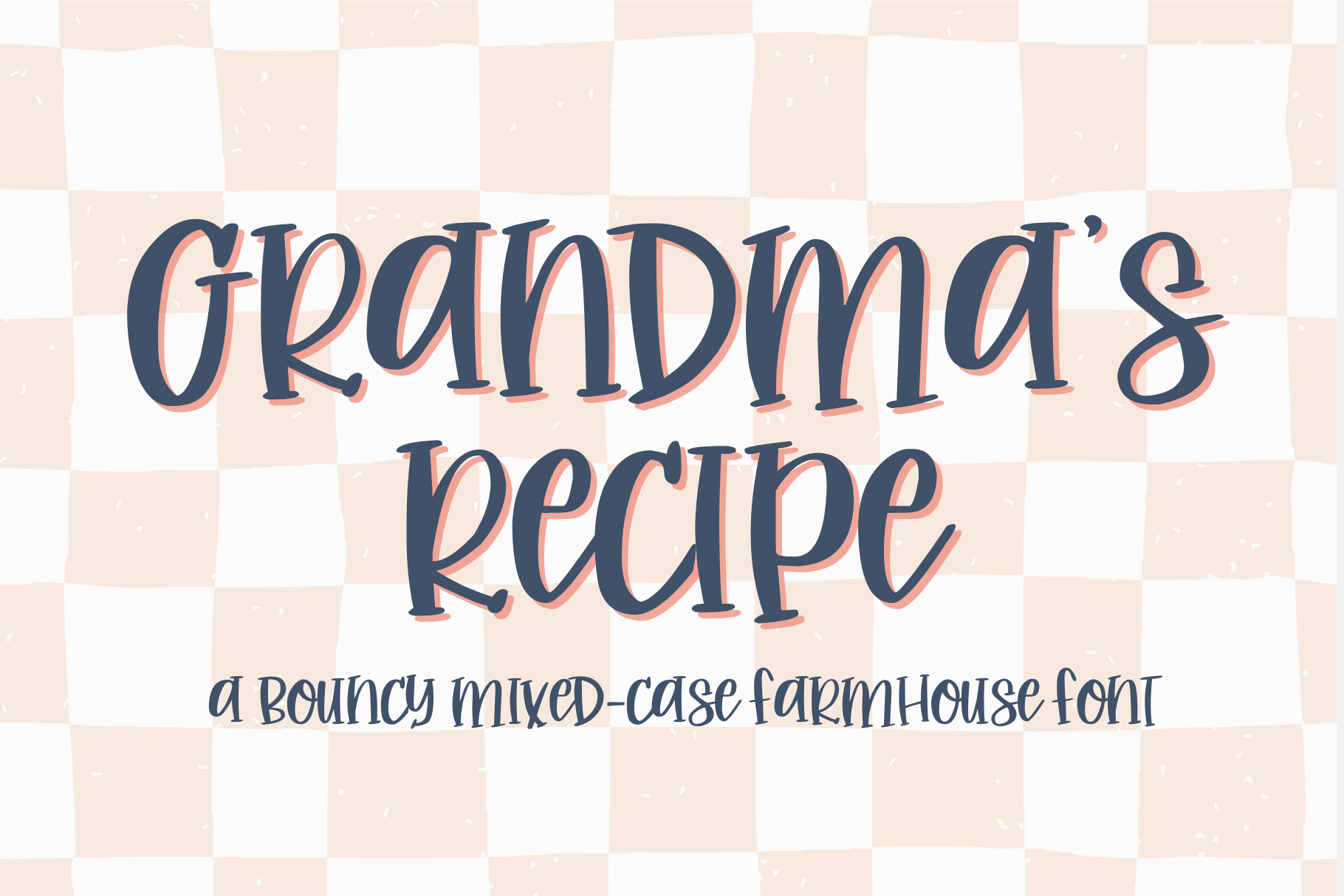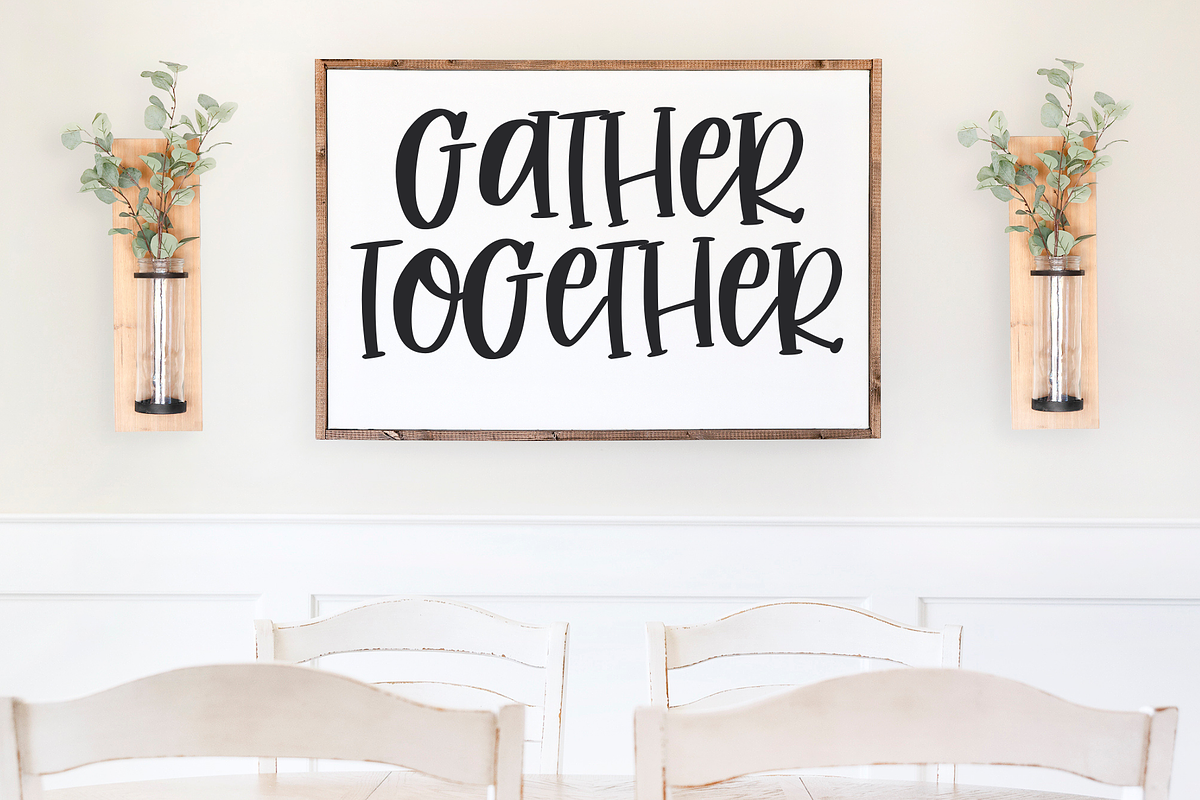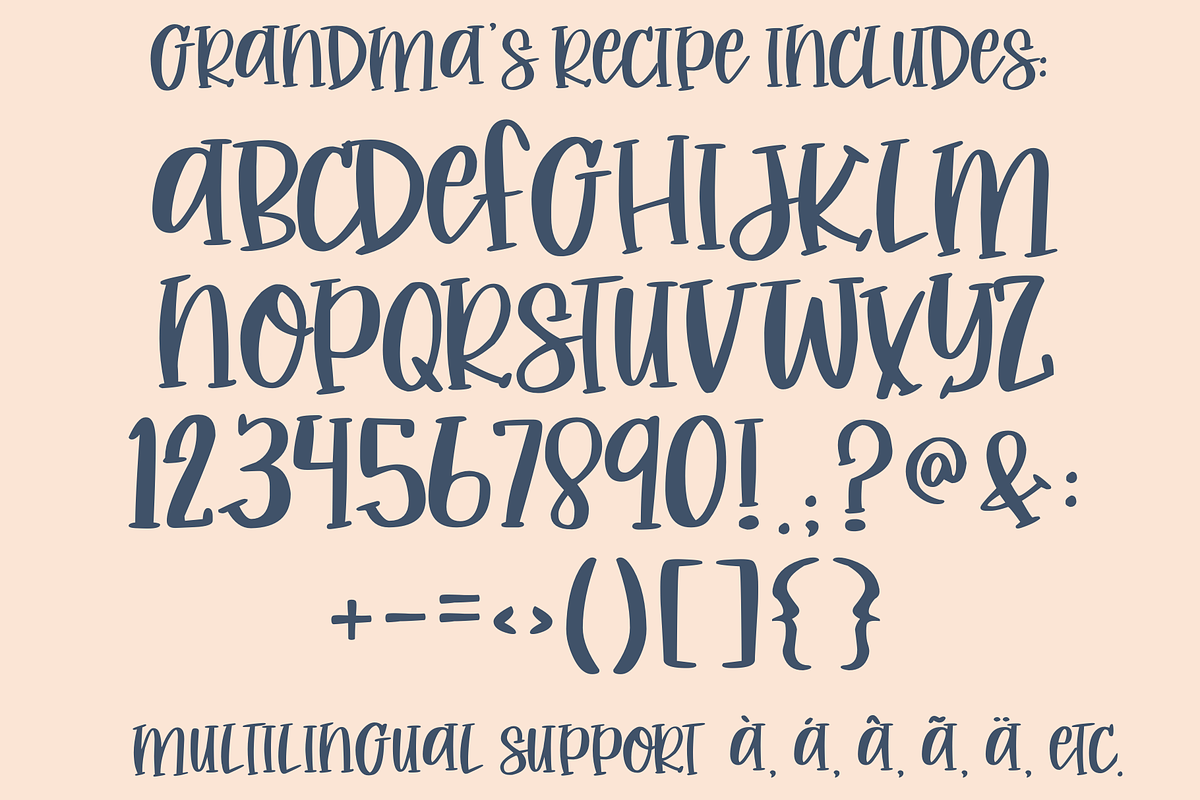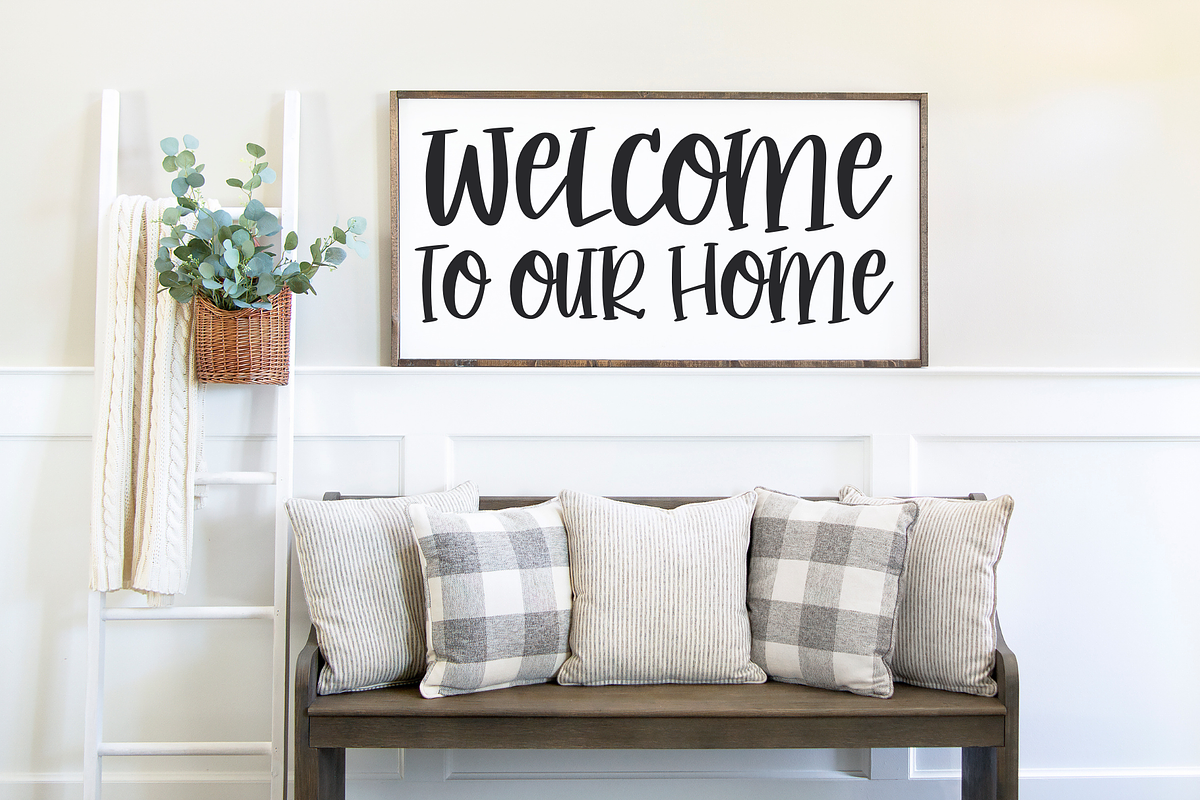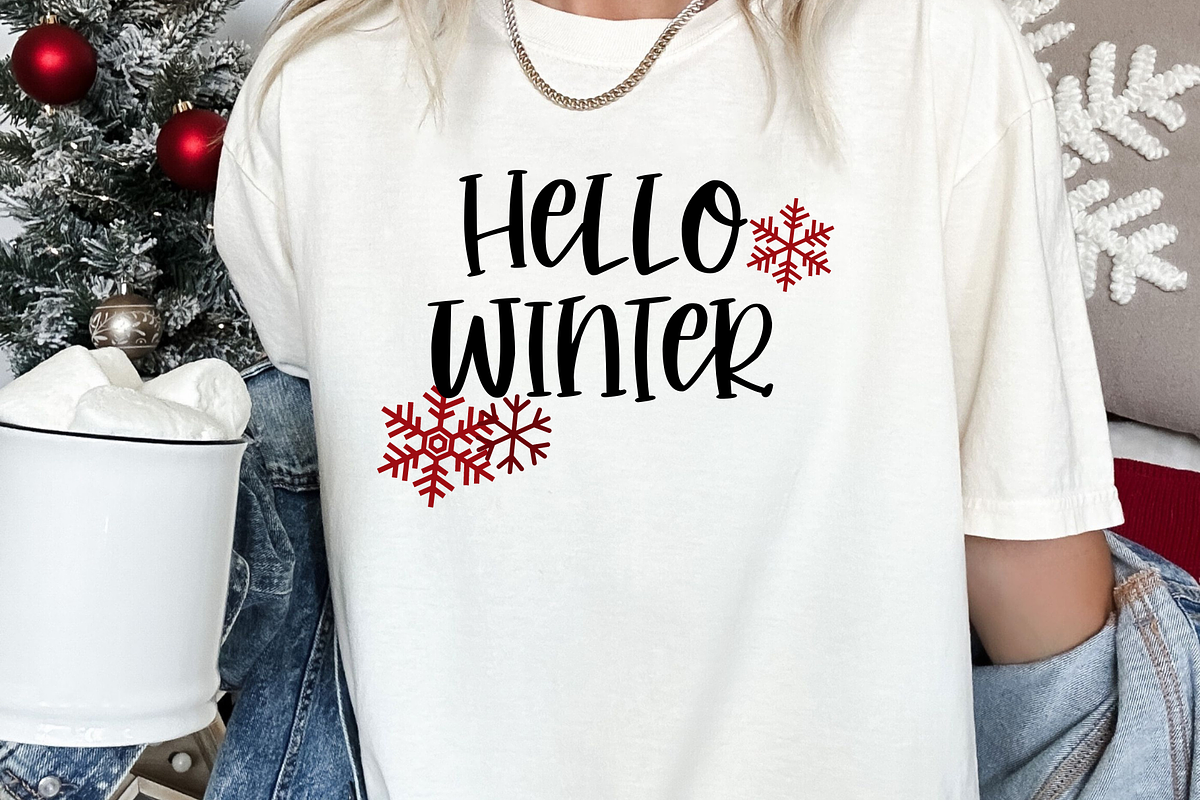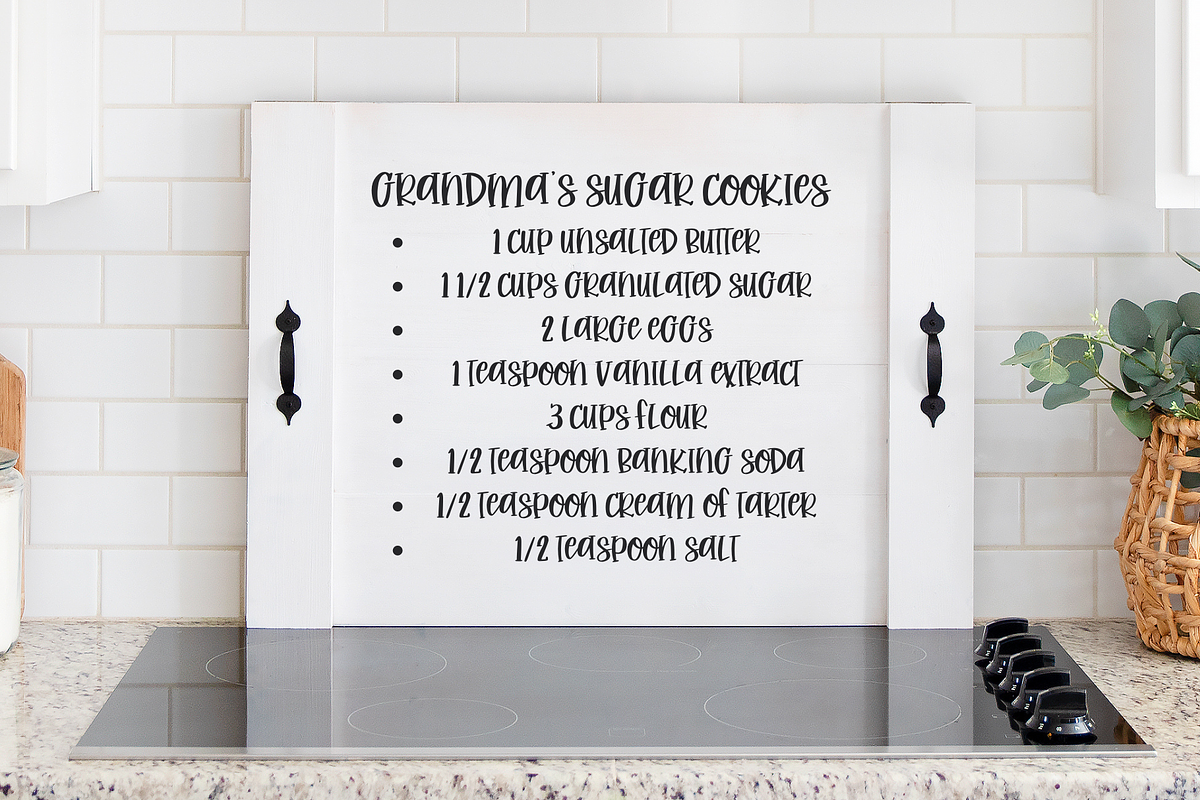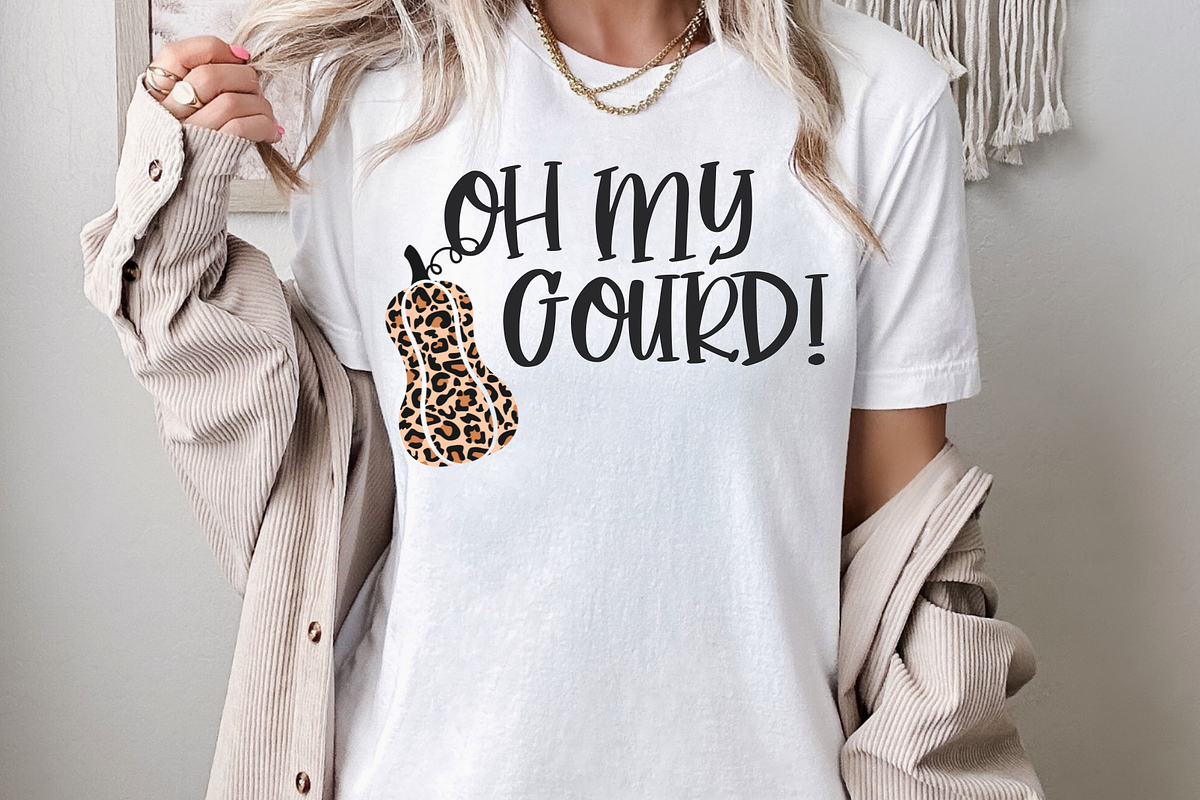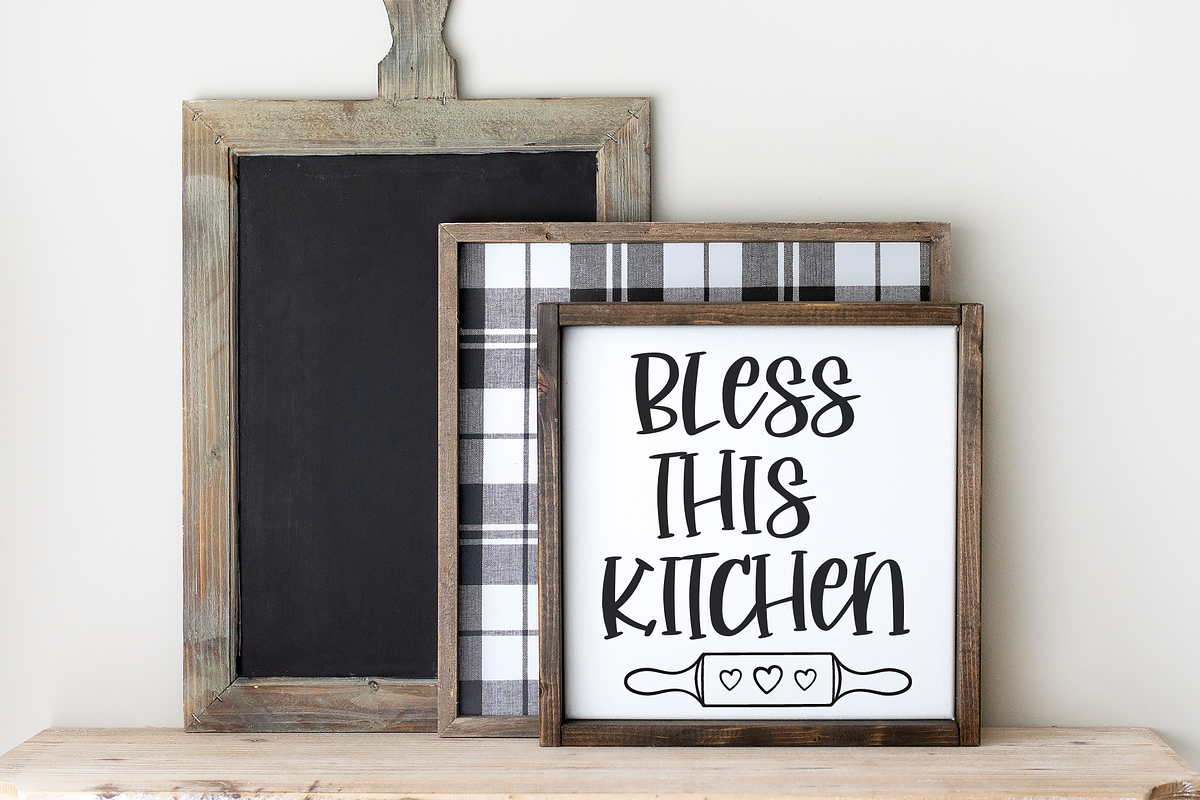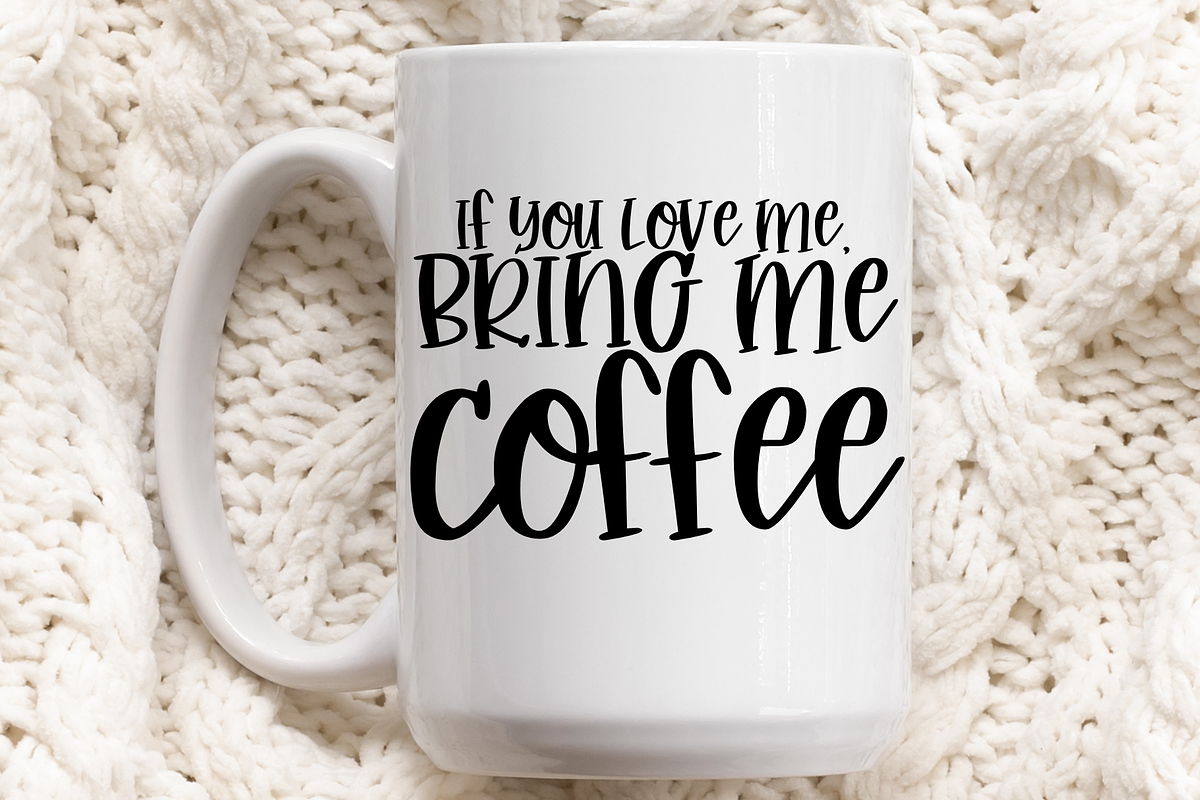
Grandma's Recipe, Handwritten Font
Grandma's Recipe is a mixed-case, farmhouse handwritten font, perfect for all your creative projects! With its elegant curves and smooth strokes, our cute script font brings a delightful touch to invitations, greeting cards, and personalized crafts. Our handwriting font is compatible with SVGs, Goodnotes, Procreate, and many other programs. Transform your designs into stunning works of art with this versatile cursive handwriting, the ultimate choice for anyone seeking a captivating and expressive typeface for their projects.